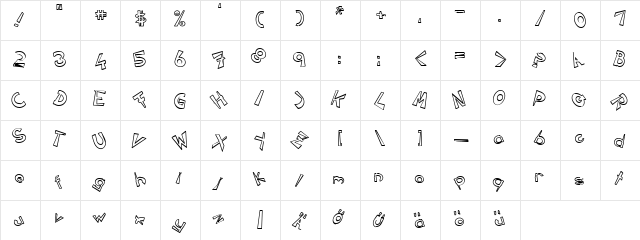
CIRCLINEcrazyjumped outline
Design Context for CIRCLINEcrazyjumped Typeface
CIRCLINEcrazyjumped brings ornamental detail and strong personality to headlines and identities, where visual impact matters more than quiet functionality.
Font Pairing: Pair with a clean neutral sans-serif for body copy to let CIRCLINEcrazyjumped's character lead without overwhelming the composition.
Pro Tip: Treat CIRCLINEcrazyjumped as the centrepiece of your typographic hierarchy. One strong heading set in a decorative face can carry an entire layout.